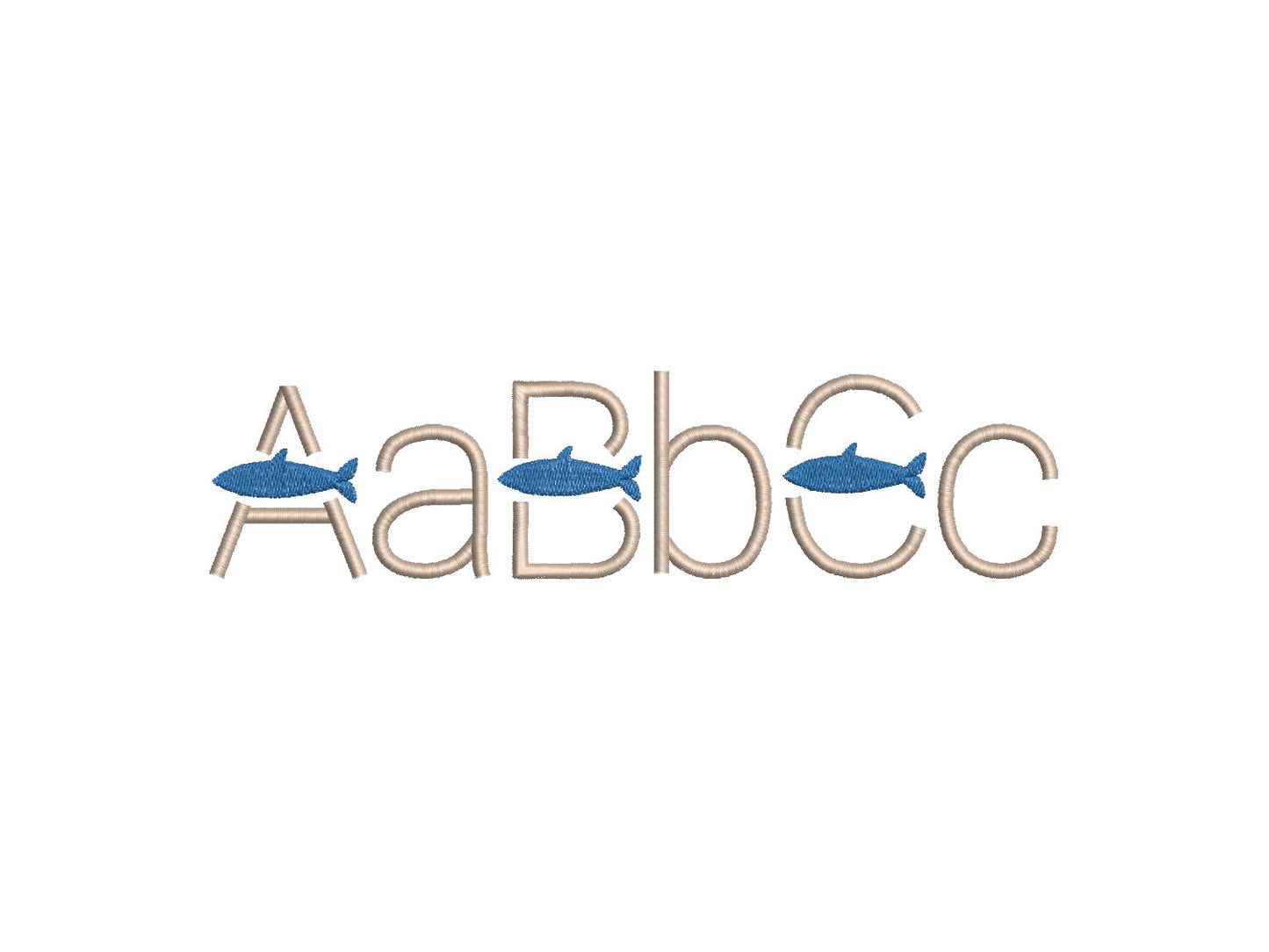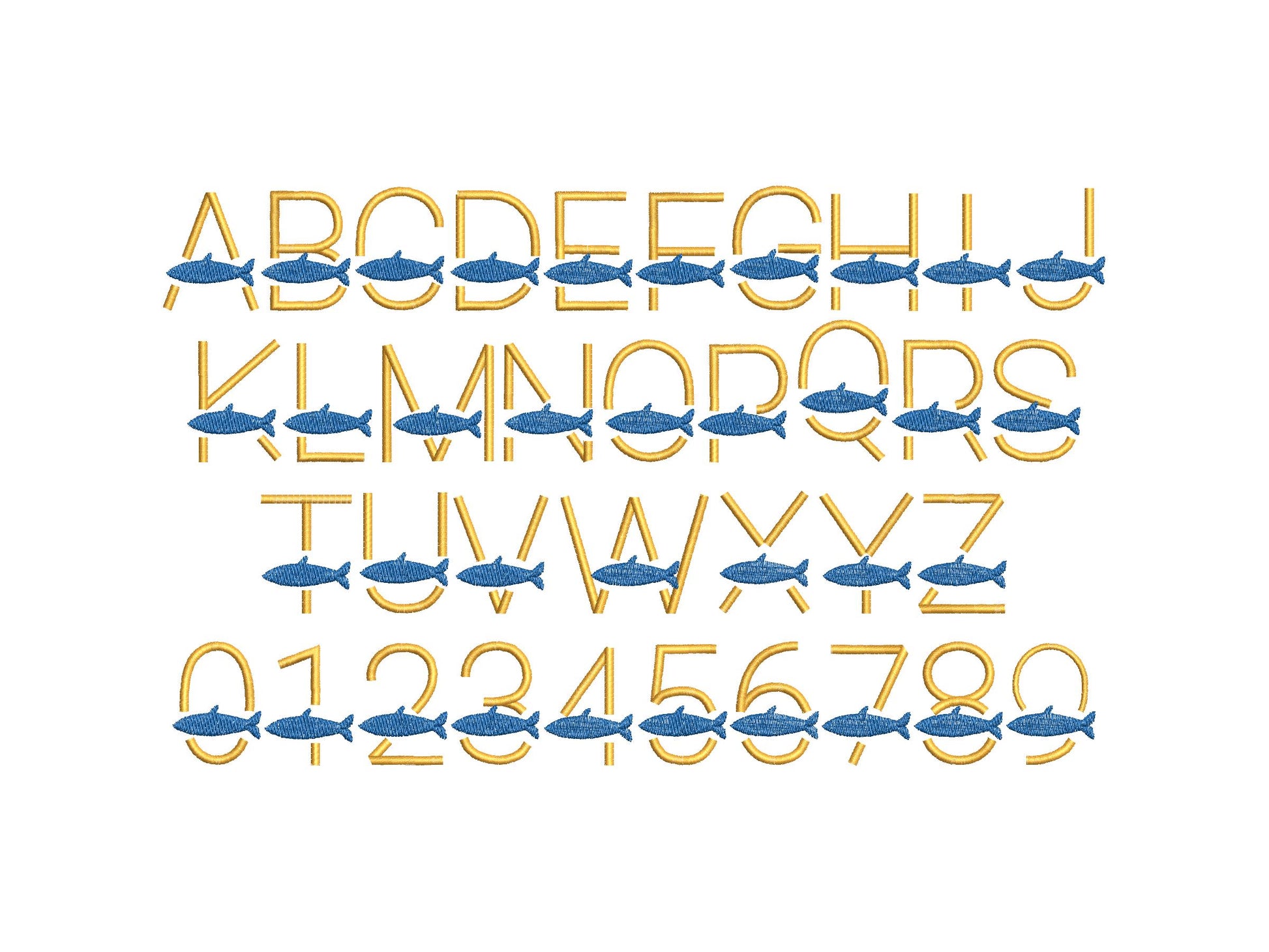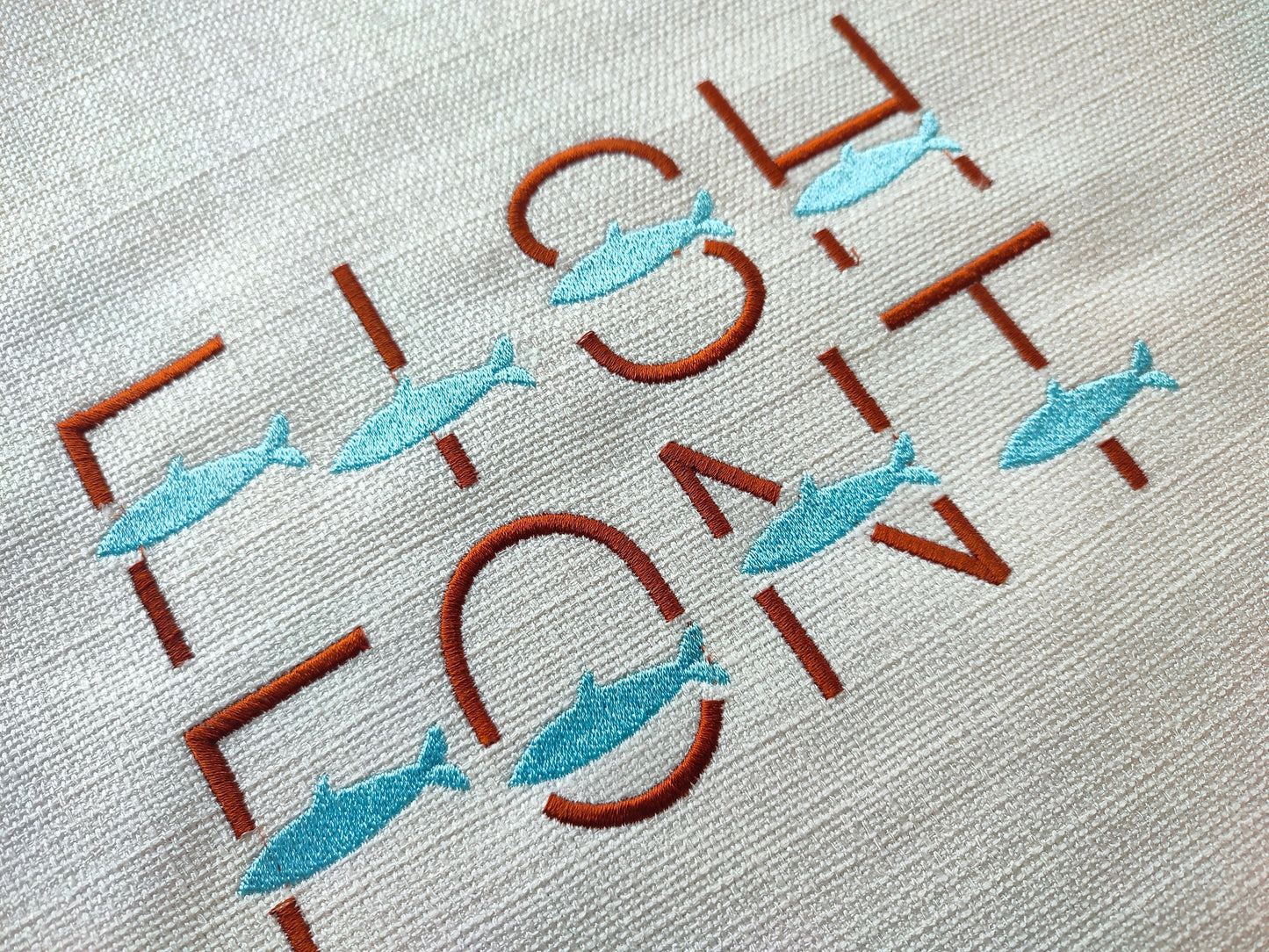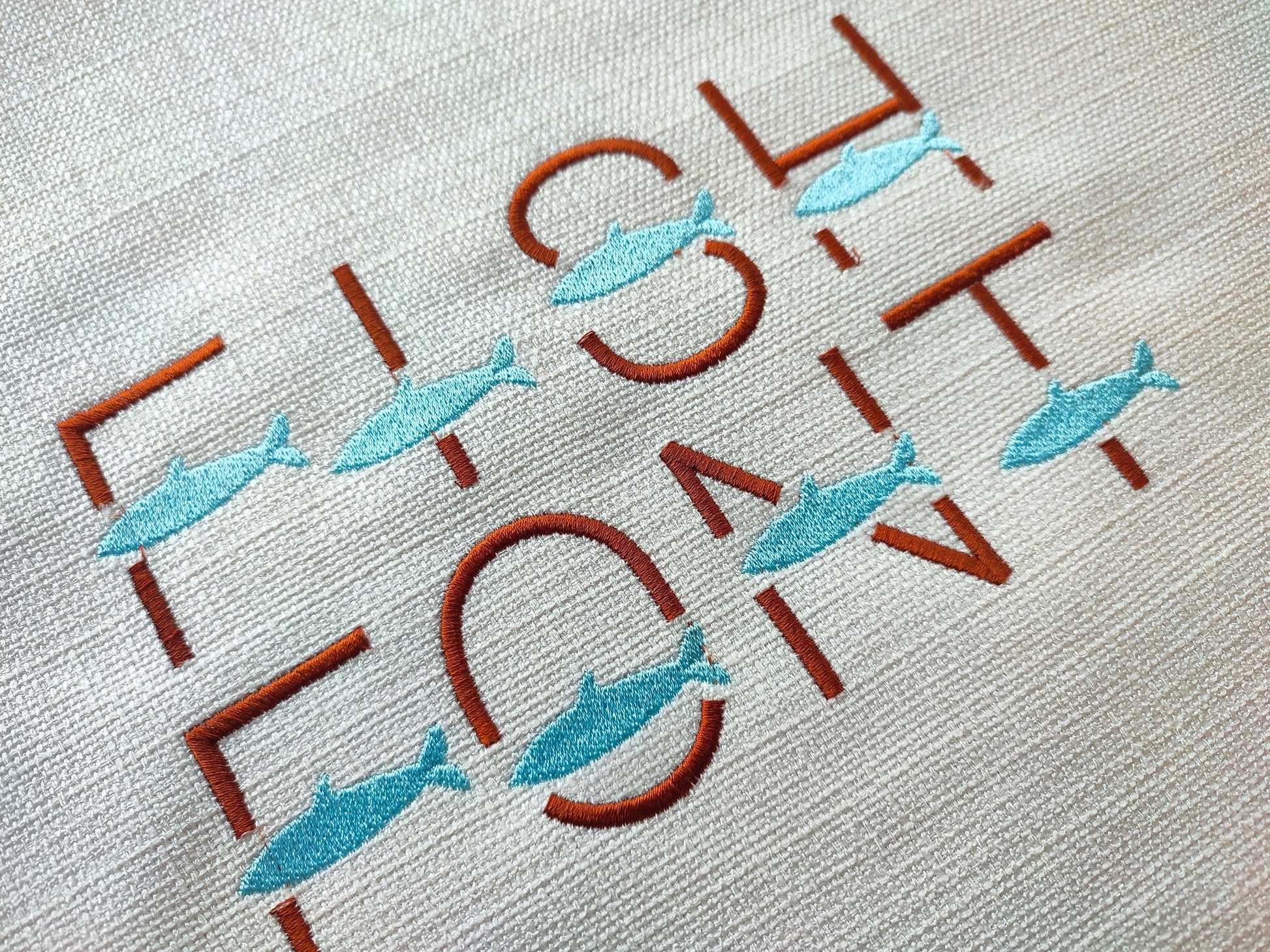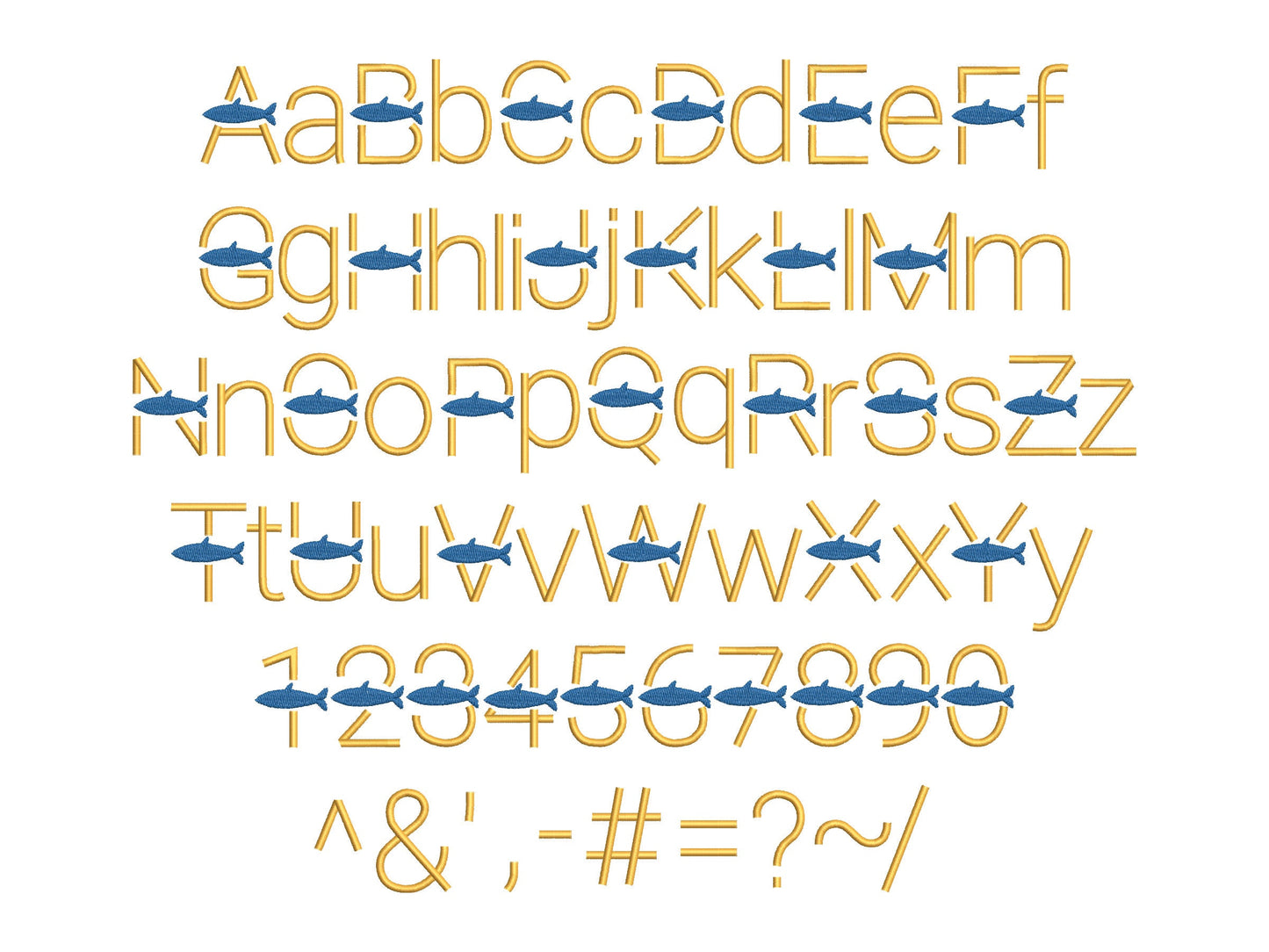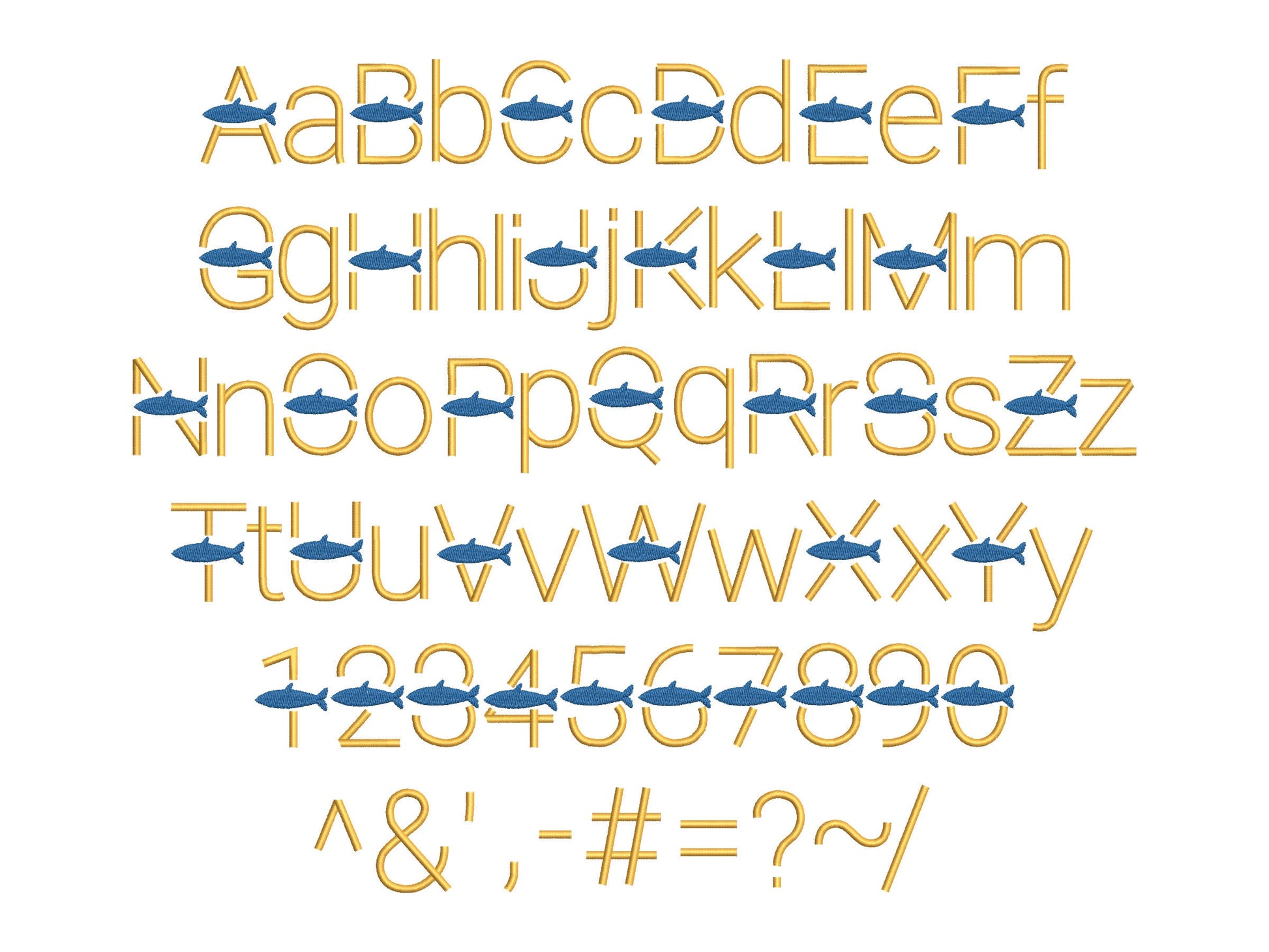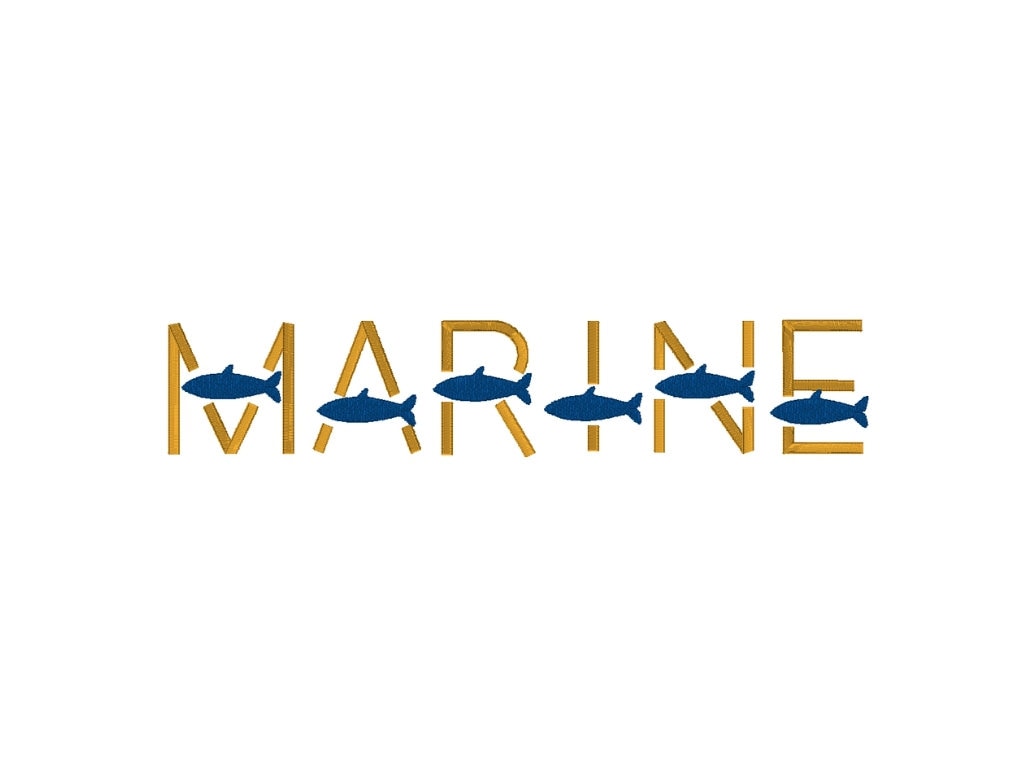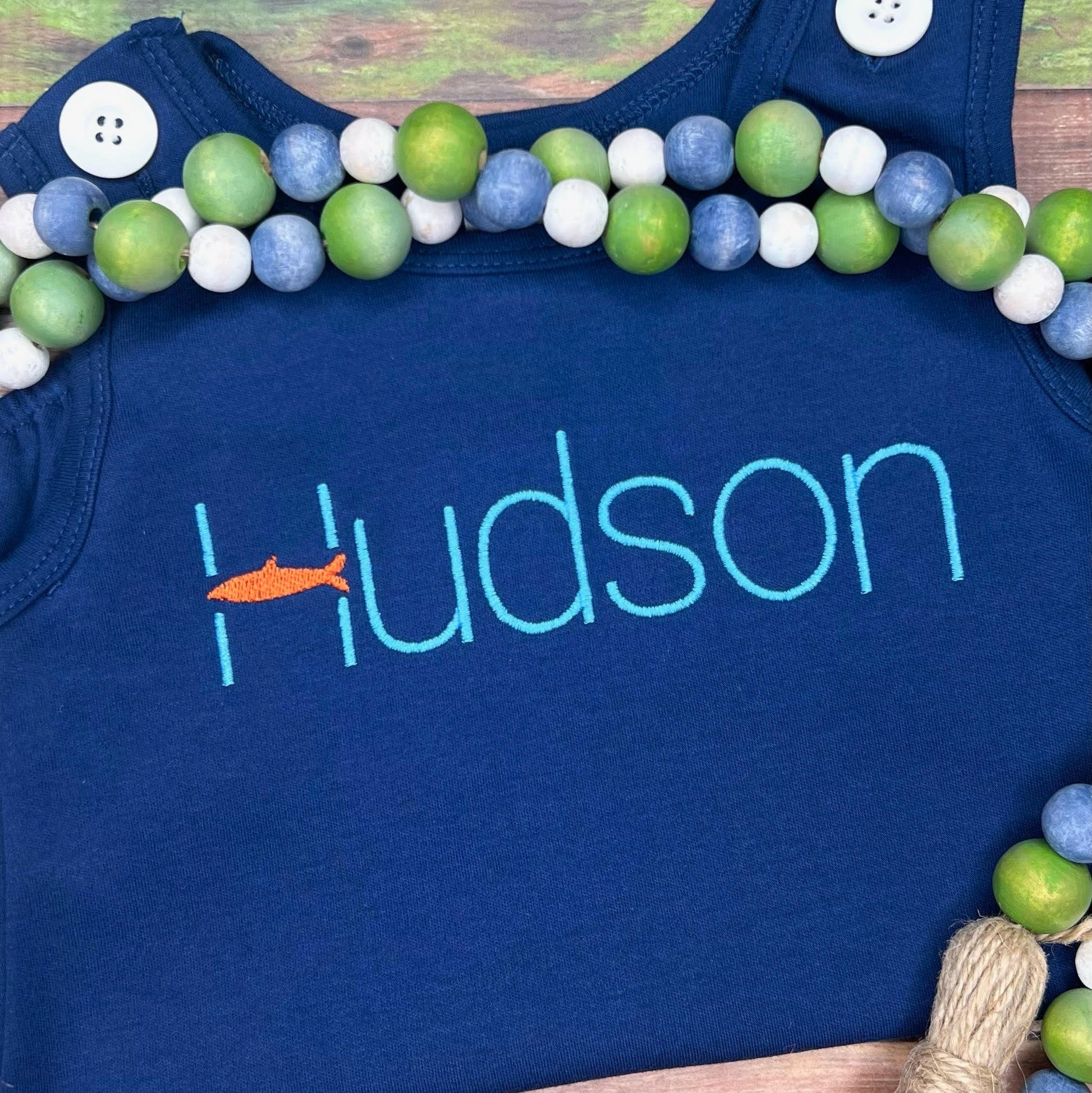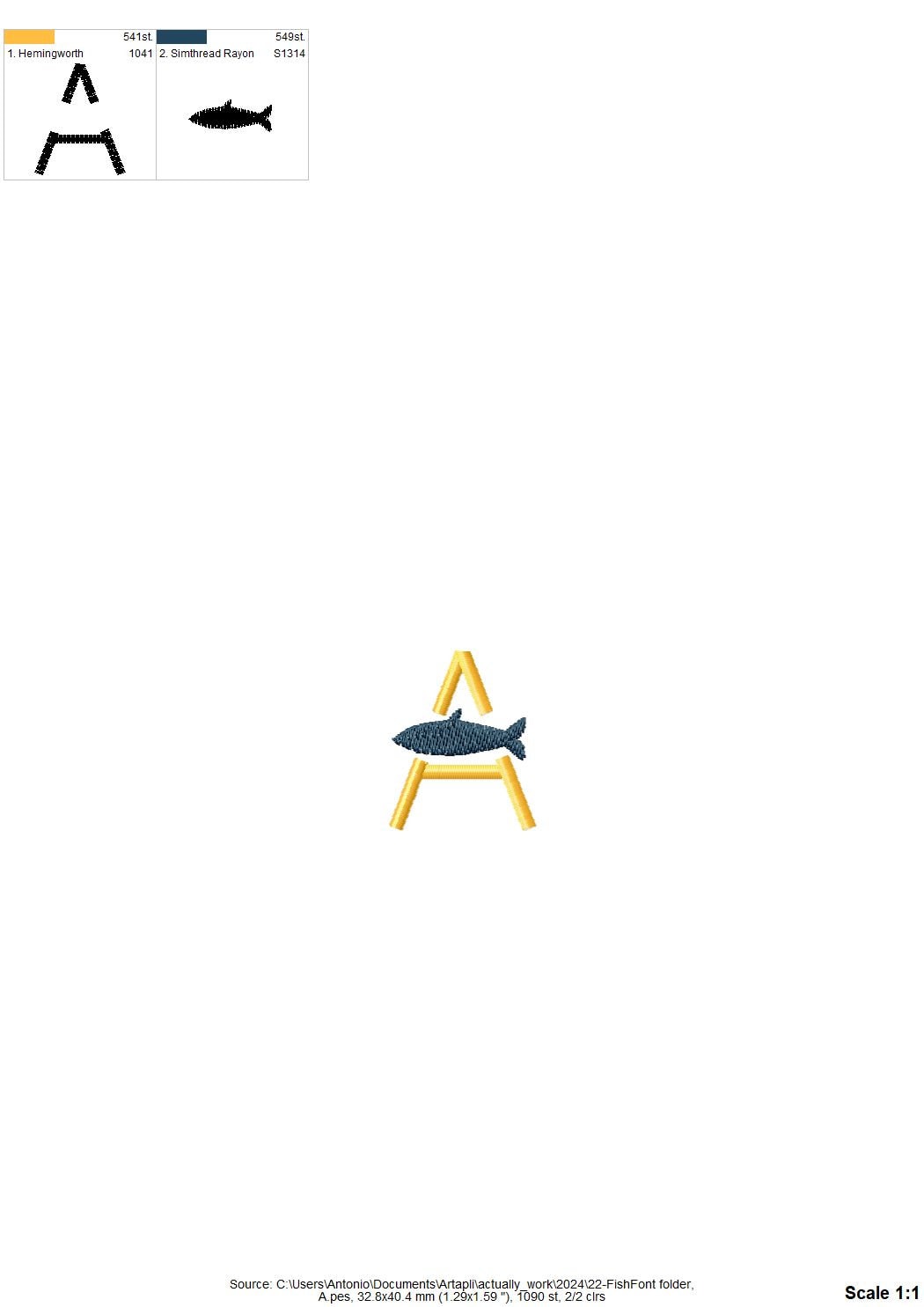
Satin Stitch Fish Font
Or click to open the linkA satin stitch block font with a little fish. Great for fishermen, boys' and men's shirts, caps, bags and monograms.
Two styles: uppercase letters and numbers with a fish, placed high or low, and plain lowercase letters and punctuation. Eight sizes: 0.6, 0.8, 1, 1.3, 1.6, 1.9, 2.3 and 2.7 inches.